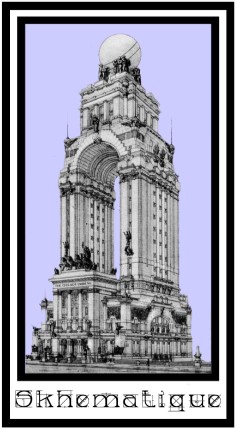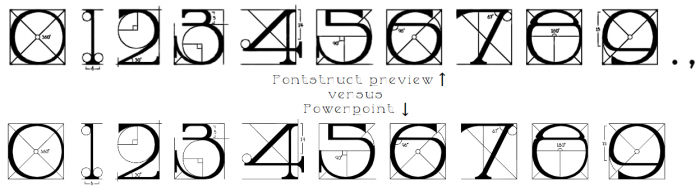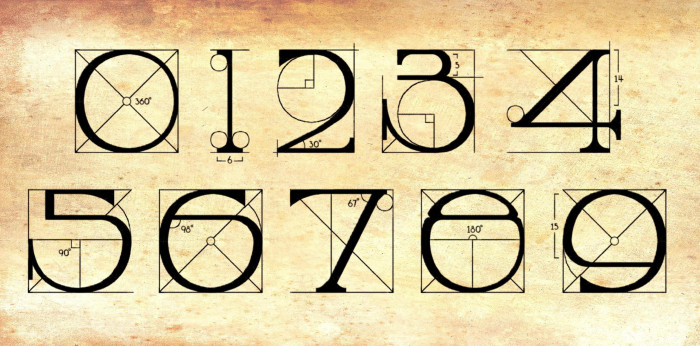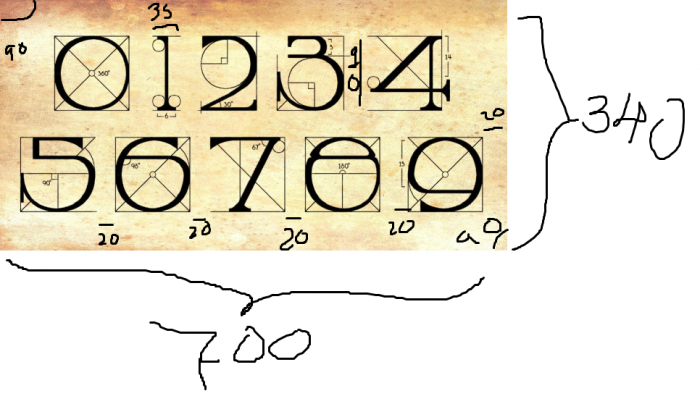
Love your re-interpretation of traditional Roman serifs! The exaggerated proportions (especially the big, circular bowls) really slots itself snuggly in between Art Deco and Art Noveau styles as well. Those exposed angles and technical lines also really helps give it structure and balance throughout the character set.
My only qualm is that certain letters are a bit too thick ('z') and thin ('t') in some strokes. But other than that, this is a really good conceptual typeface! All the best in the competition!
I like this idea, 10/10. However it needs to be of certain size, to show off all its features. The only shame is, the Fontstruct preview makes the thin lines look too thick. Don't forget the numbers preview, good luck in competition.
i don't like the W, its just a rotates M
That's amazing! Although I'm not really a fan of the upside-down M for W, and there's some inconsistent styling between K/k and W/w. But great work!
Number 8 has a tiny hole on its left side. And some of the guidelines are somewhat rough and occasionally don't align. Is this something you will eventually fix?
@Sed4tives good eyes you have to spot that tiny hole. I could only see it whith font size like above 400. On the FS preview page it would not be visible, since to me it seems fonstruct always tries to wrap every brick into separate thin envelope and if there are multiple such over same line, they superimpose and make that area look bloated. (I tried your suggestion with the browser zoom, but could not see any better preview.)
All my congratulations on this excellent performance! Well done. What a beautiful approach (picture example)
Excellent work. It was a brave move to include fine curves and thin lines using the crude FS toolset. Congratulations. 10/10
the "7" has a "67".
@Rashnu angle
i REALLY liked the font, my only issue with this that you HAVE to make a version of this font without the weird guideline thingies. Really cool font btw!